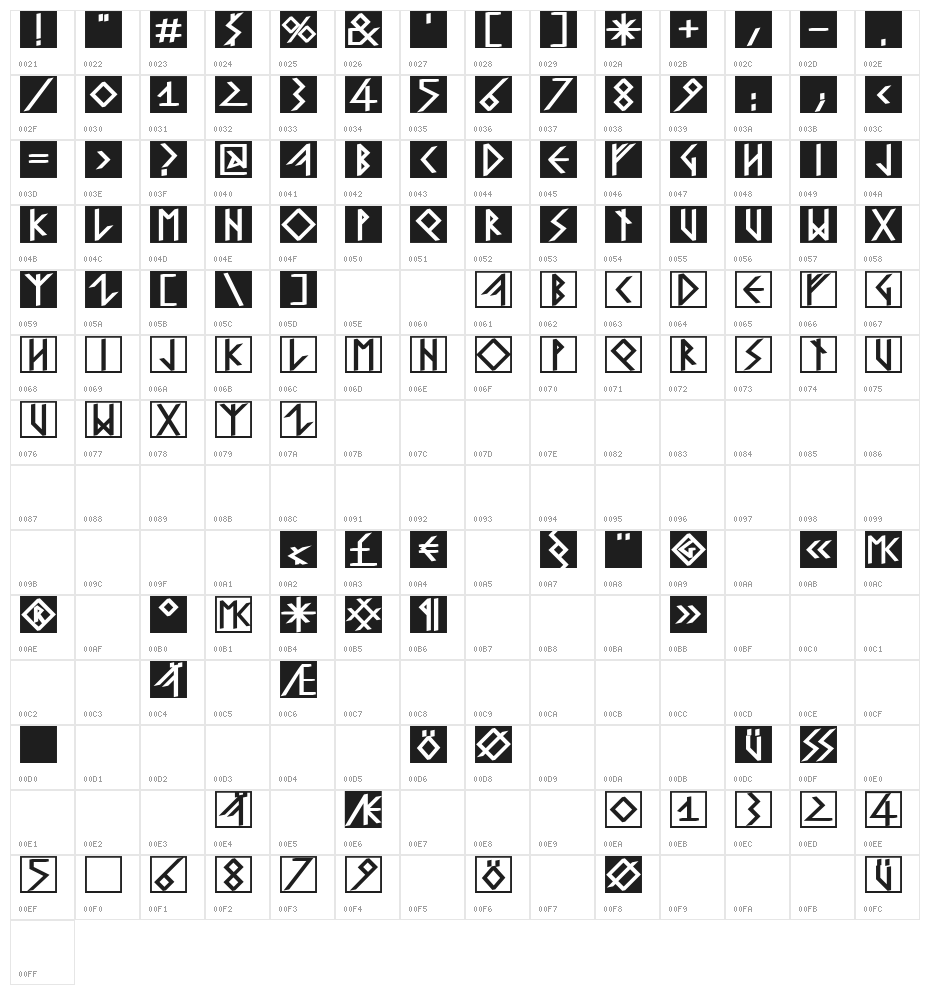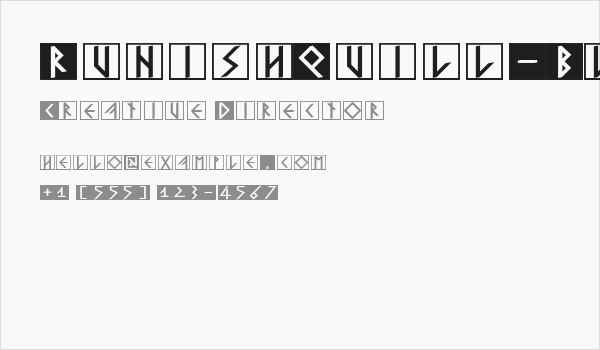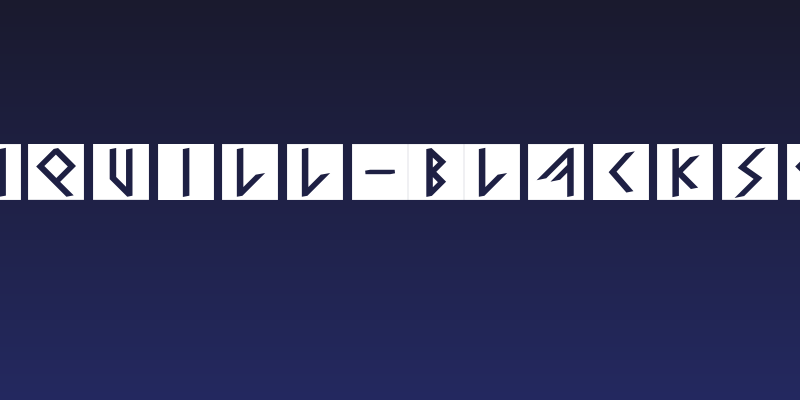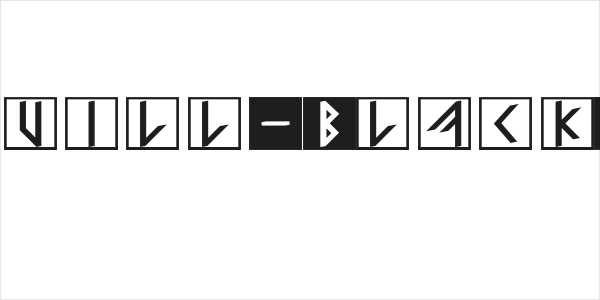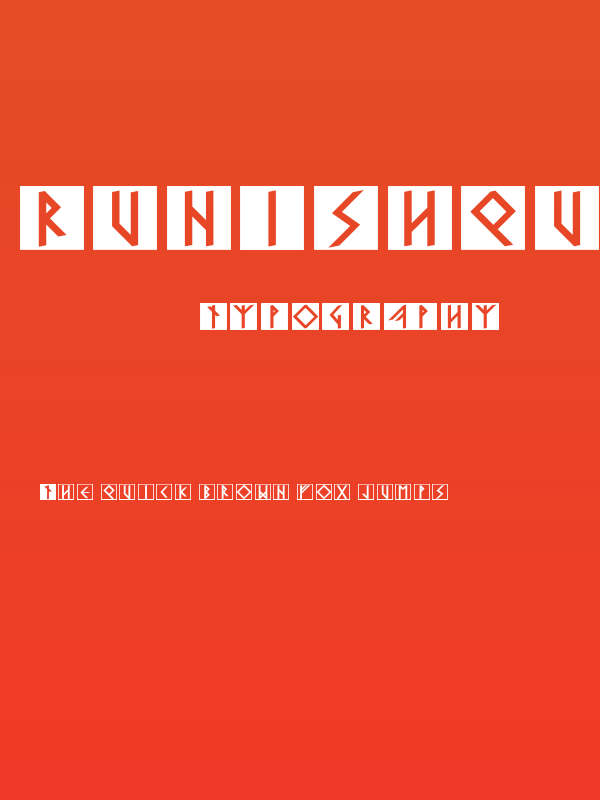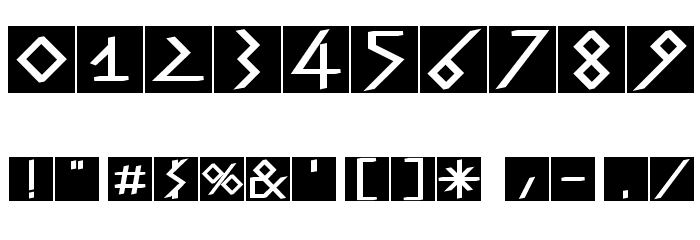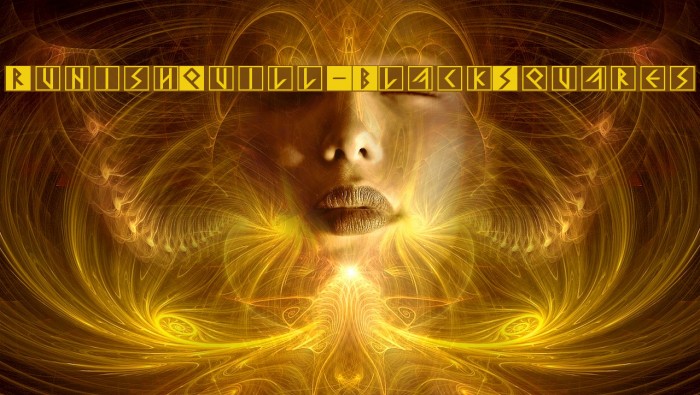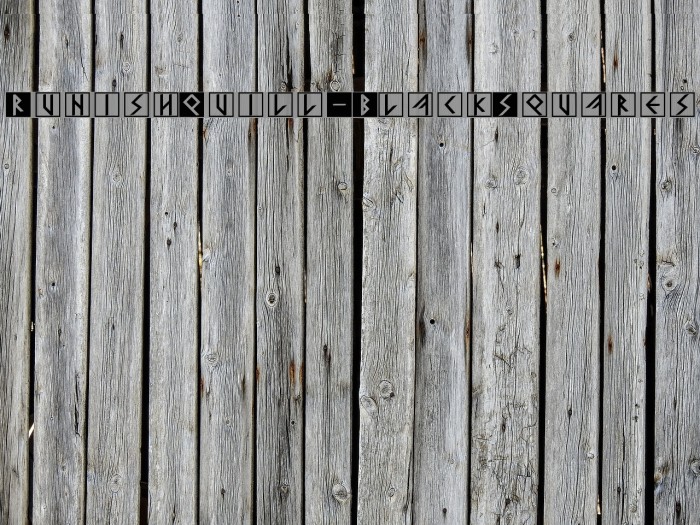
RunishQuill-BlackSquares Font
RunishQuill-BlackSquares Description
This font features a unique and bold design with each character enclosed in a black square, creating a striking visual impact. The letters are crafted with sharp, angular lines and geometric shapes, giving them a modern and edgy appearance. The uppercase and lowercase letters maintain a consistent style, while the numbers and special characters follow the same design principles, ensuring uniformity across the font. The use of negative space within the black squares adds an artistic touch, making the characters stand out distinctly. This font is ideal for projects that require a bold and attention-grabbing typeface.
| Proposed Projects | Ideal for posters, album covers, branding, and any design needing a bold, modern aesthetic. |